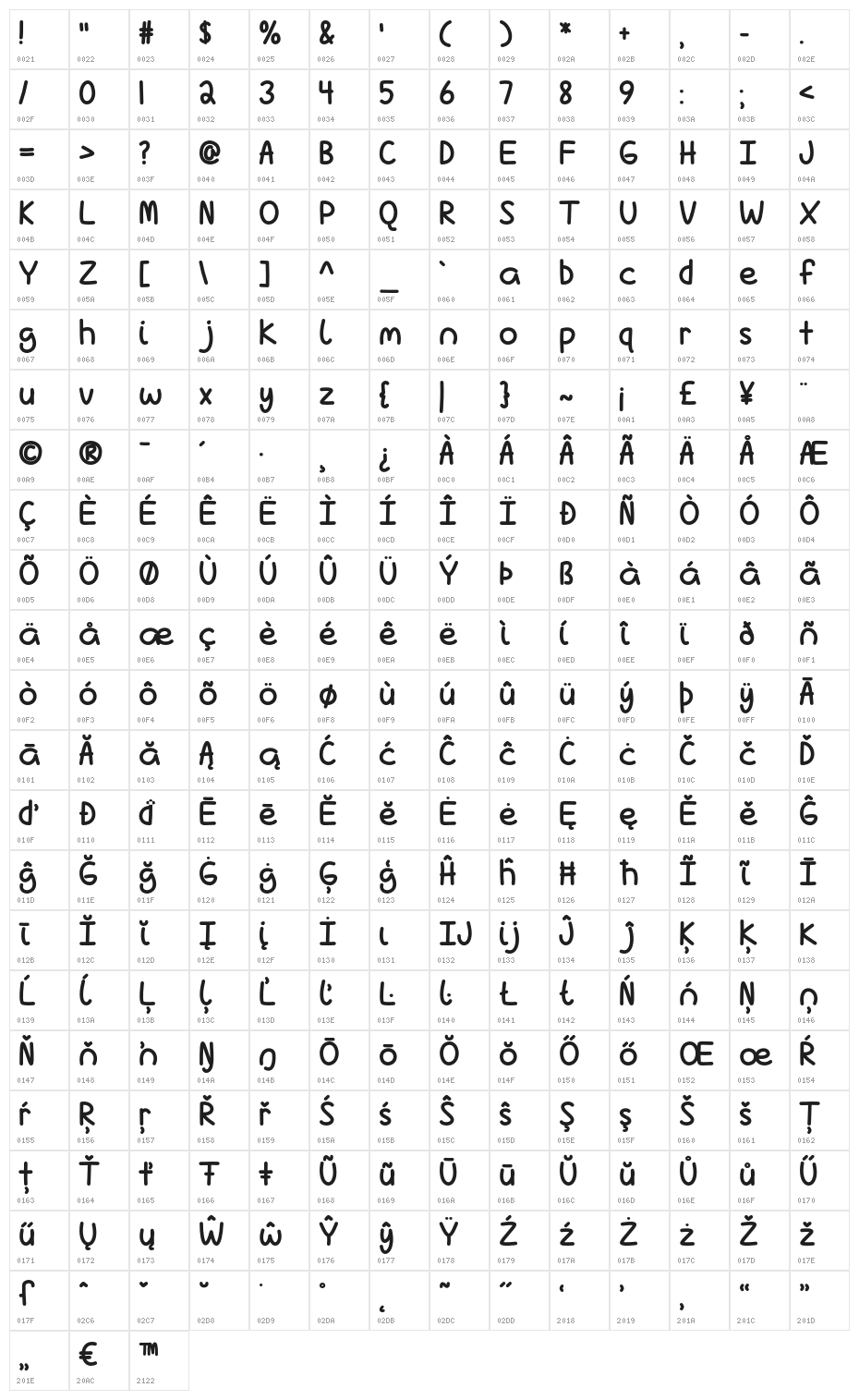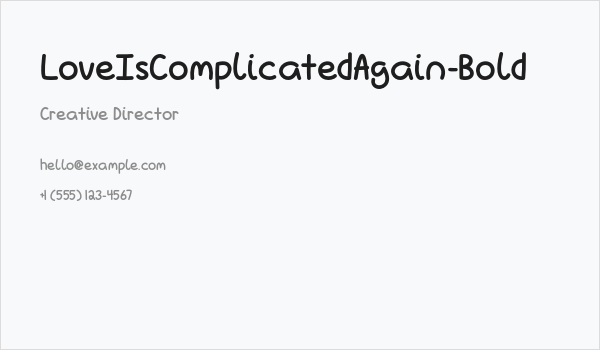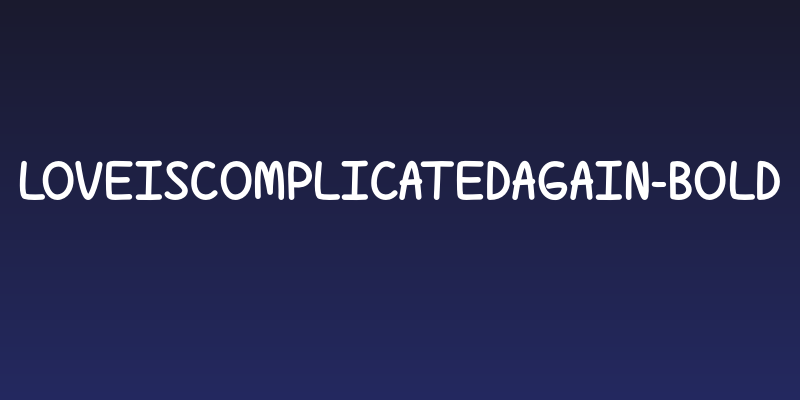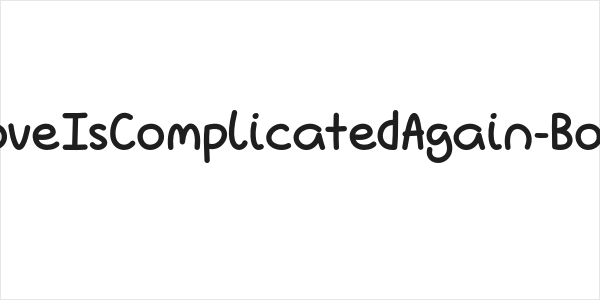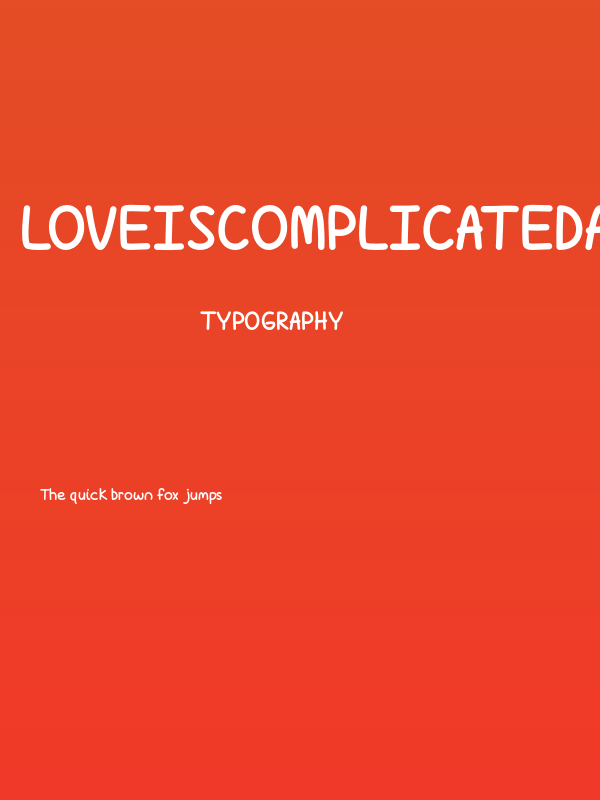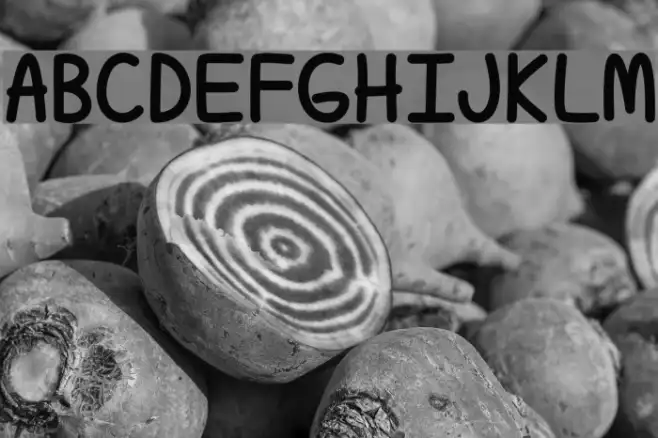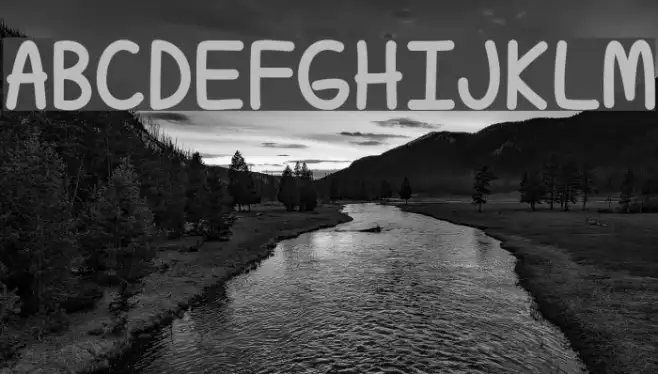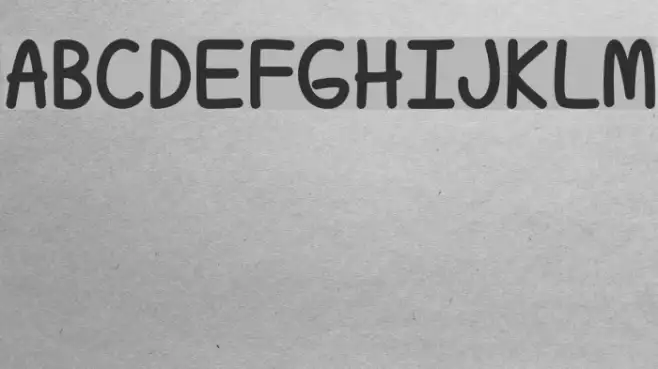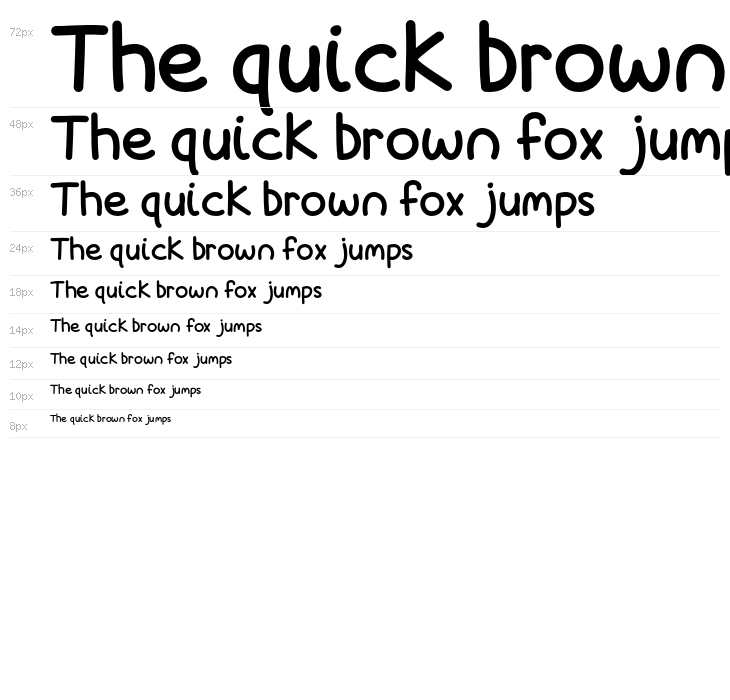
LoveIsComplicatedAgain-Bold Font
LoveIsComplicatedAgain-Bold Description
This playful and bold font features rounded, hand-drawn characters that exude a casual and friendly vibe. The uppercase and lowercase letters maintain a consistent, smooth stroke with a slightly whimsical touch, making them highly legible and approachable. The numbers and special characters follow the same design ethos, ensuring uniformity across all glyphs. The font's overall appearance is informal and lively, suitable for projects that require a personal, human touch. Its boldness and rounded edges make it stand out, while the consistent stroke width adds to its readability.
| Proposed Projects | Ideal for children's books, greeting cards, playful branding, and informal invitations. |